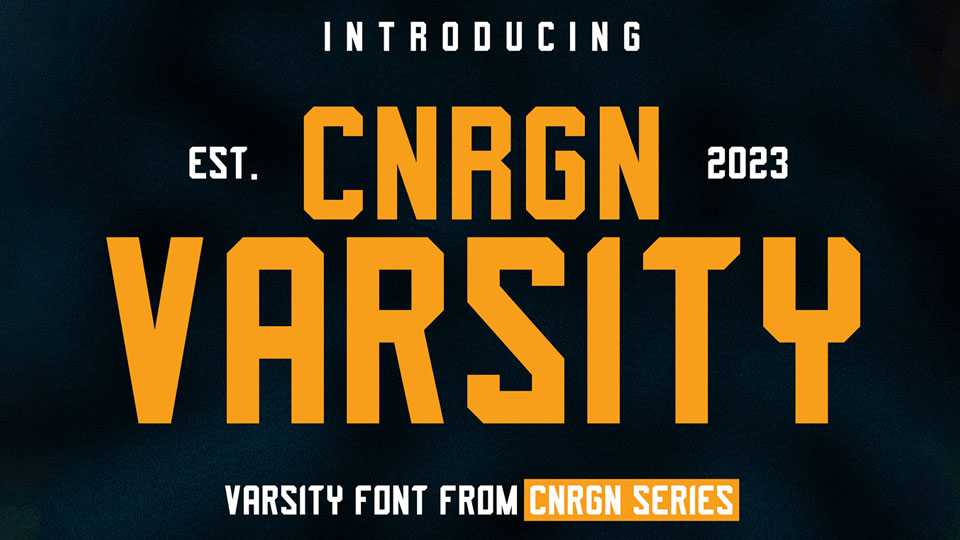
Download CNRGN Varsity font, a sporty blocky display typeface with a rigid shape, strong and crisp look. Best for any sports design like logo, apparel, posters and so on.
Designer: Brylle Conrad Co